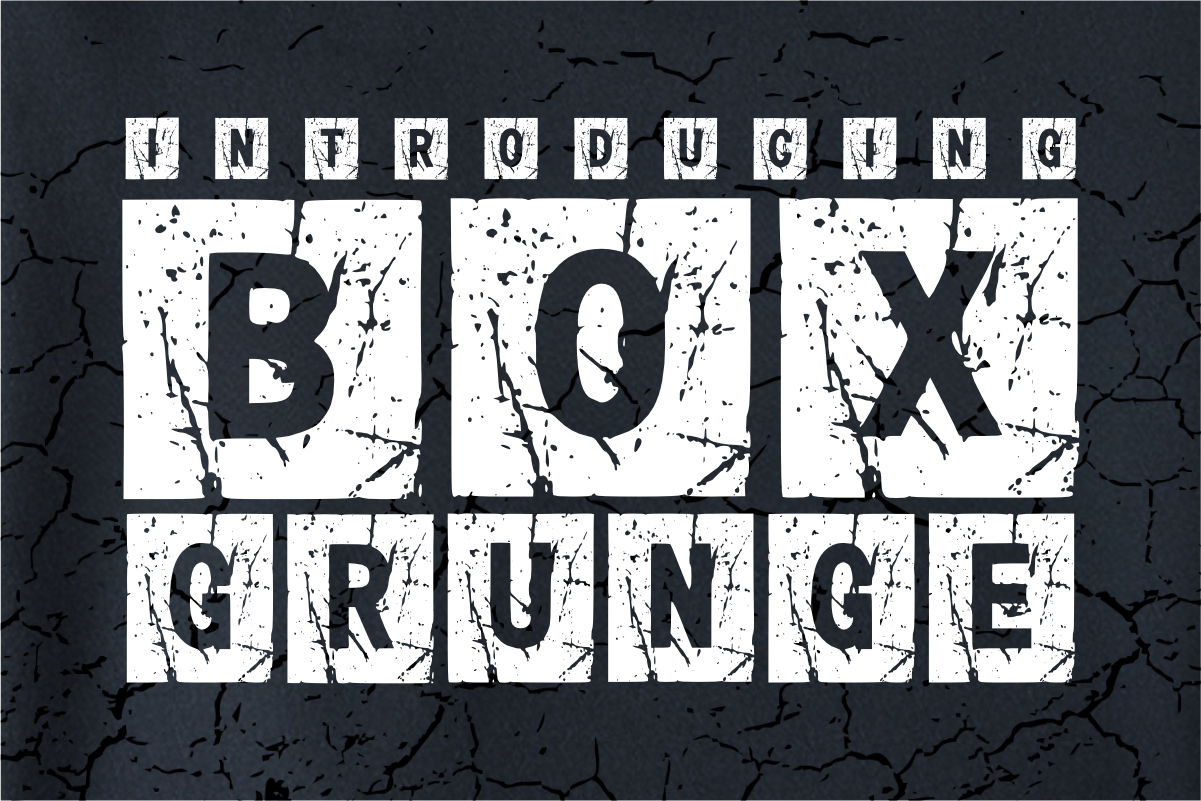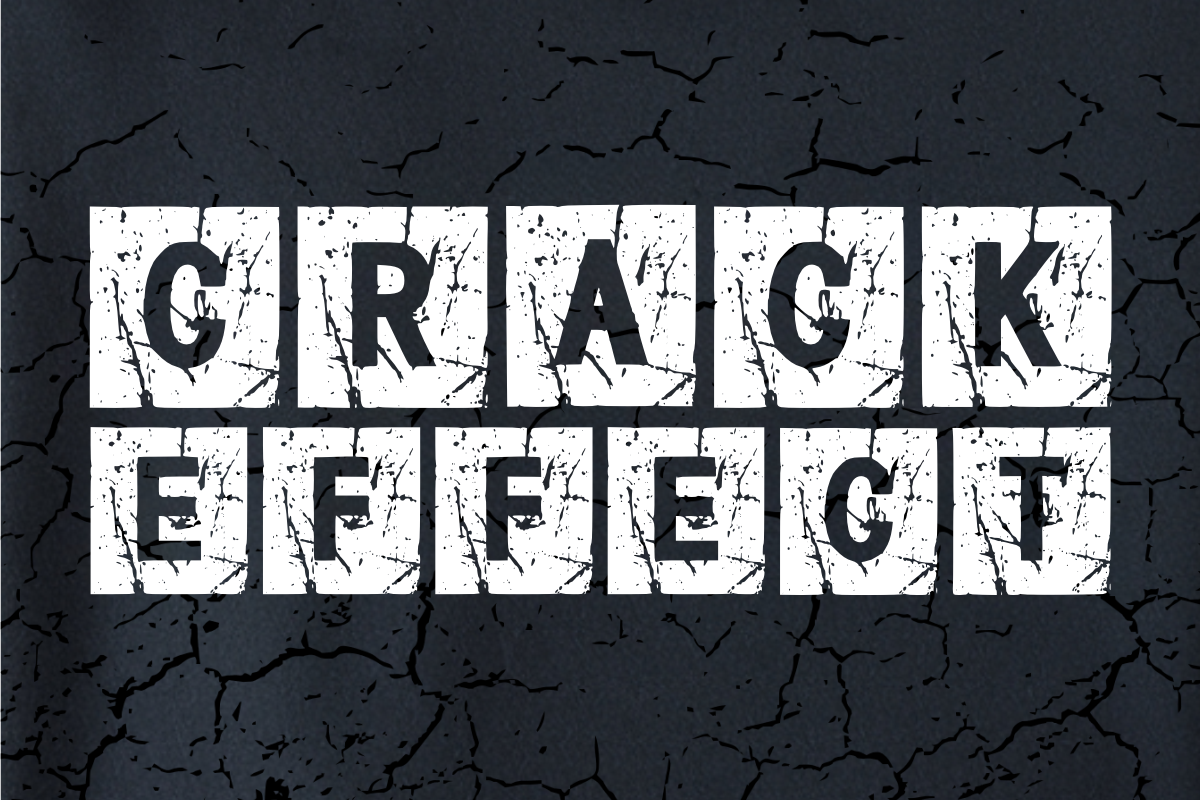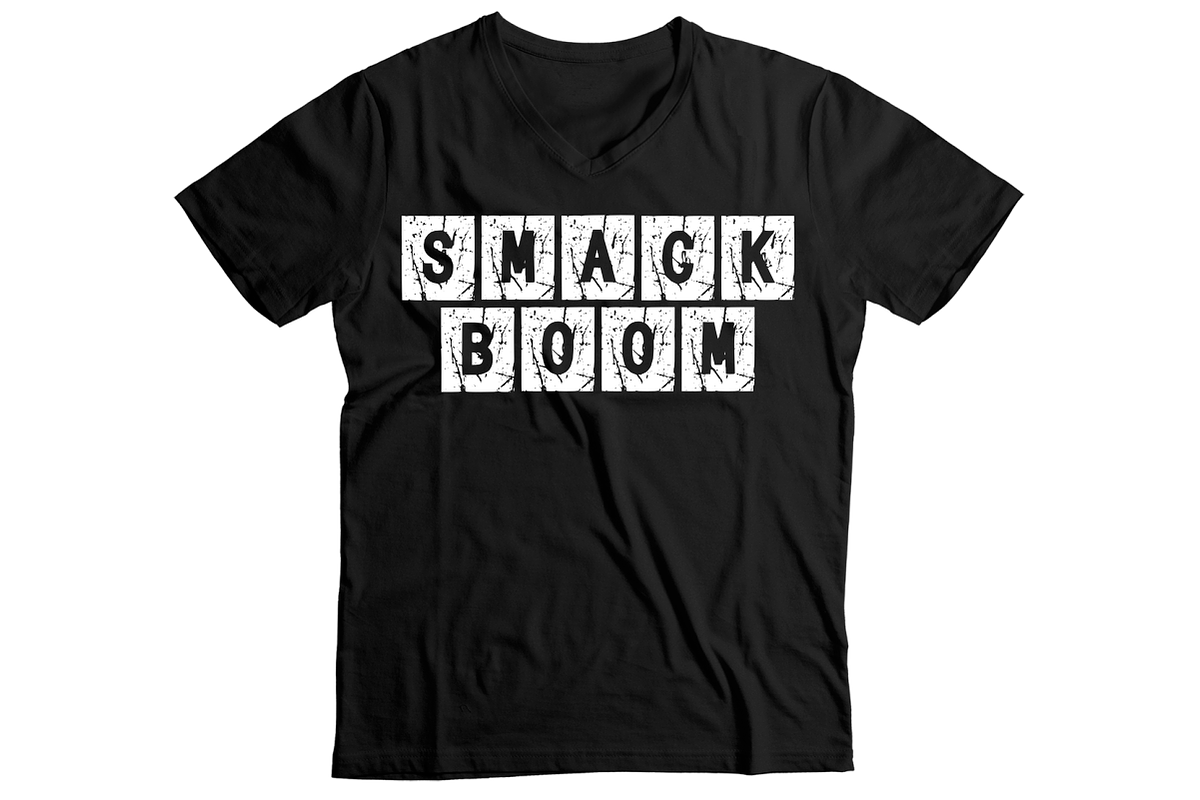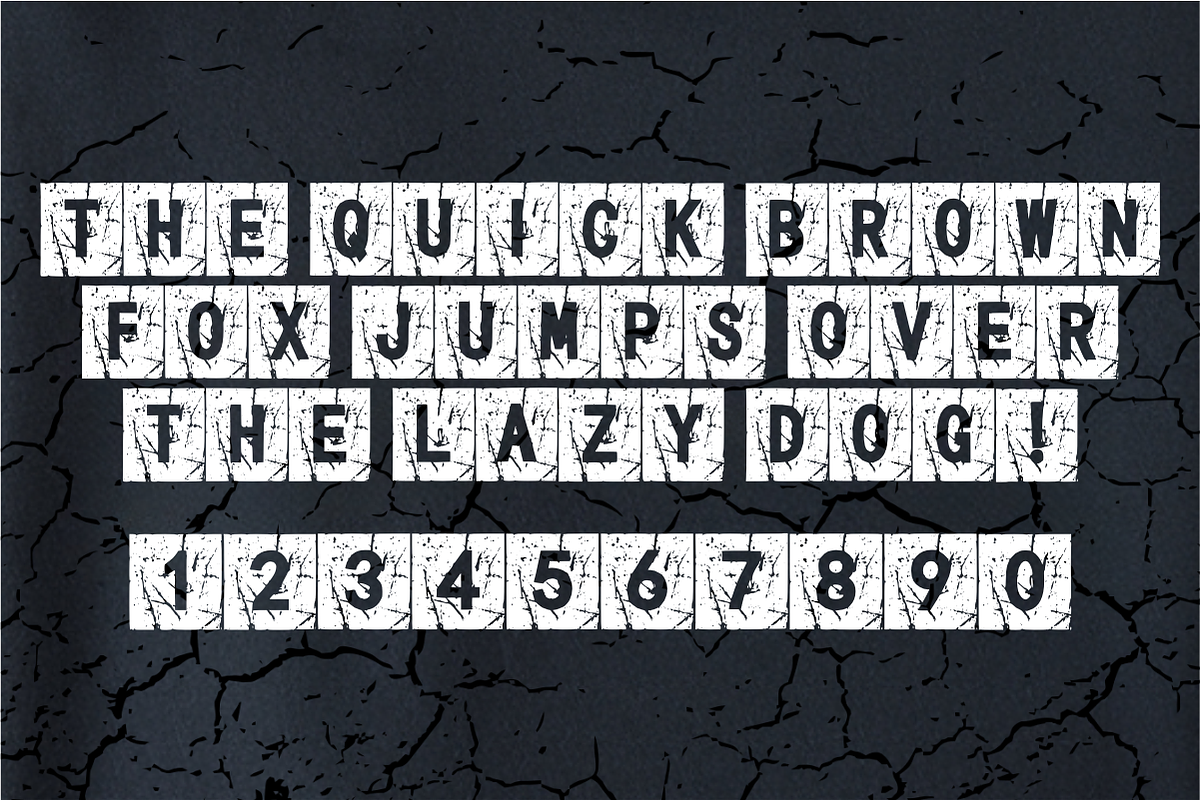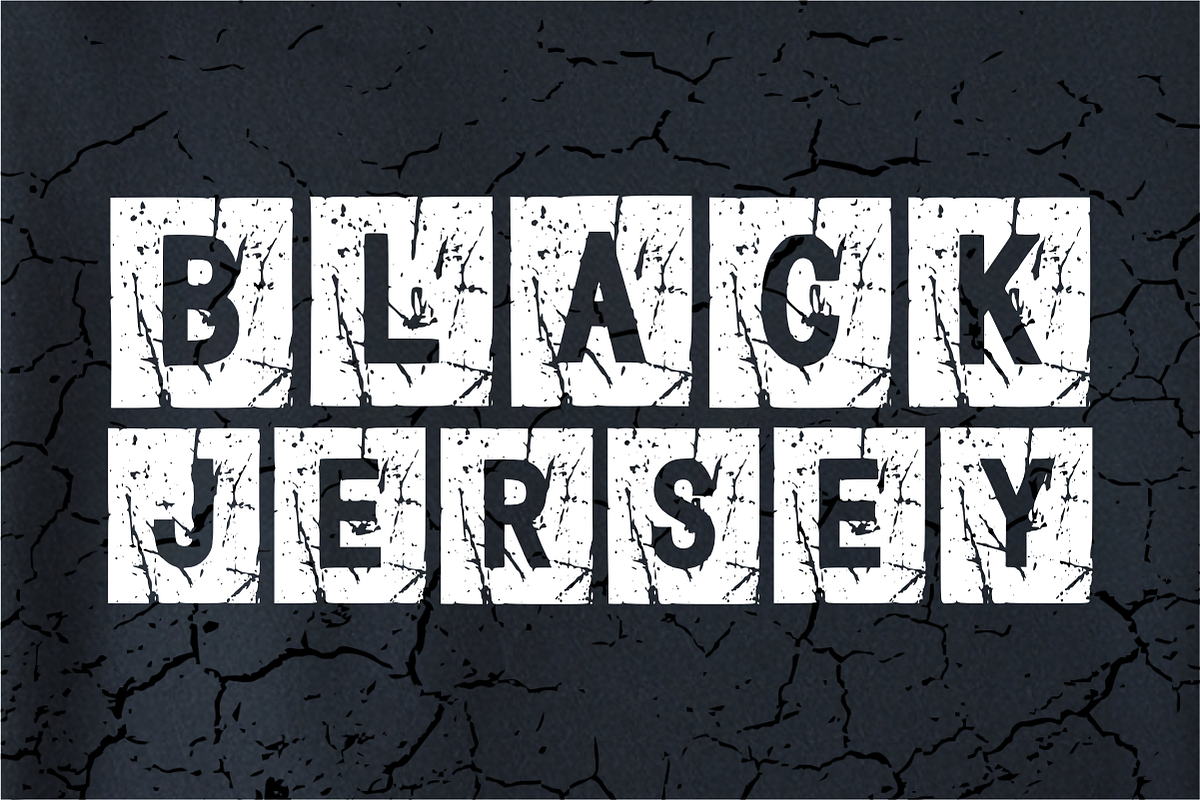
Box Grunge – Stamped Display Font
Box Grunge – Urban Distressed Stamped Display Font 🛠️⛓️
Unleash a raw, industrial edge with a font built for impact!
Box Grunge is a bold, high-impact display font featuring heavy block letters set within weathered, distressed boxes. Inspired by industrial stamping and urban street aesthetics, this font captures a rugged, "grunge" feel that is perfect for designs needing a tough, established, or rebellious look. Each character is meticulously textured to provide a realistic weathered effect right out of the box.
🌟 Why Box Grunge is the Ultimate Choice:
Ready-to-Use Grunge Texture: The authentic distressed effect saves you time—no extra filters or overlays needed to achieve a weathered look.
High-Impact Boxed Design: The unique stamped-in-a-box silhouette ensures your headlines pop against any background.
Industrial & Urban Vibe: Perfectly balances a military stencil aesthetic with a modern streetwear edge.
🎨 Perfect For:
👕 Streetwear & Apparel: Ideal for bold t-shirt graphics, hoodies, and edgy urban branding.
🎸 Music & Event Posters: Perfect for rock, punk, or metal concert flyers and festival headers.
🏀 Sports & Gym Branding: Create powerful logos, jersey designs, and motivational fitness content.
📸 Social Media Content: Stand out on Instagram and YouTube with high-visibility, gritty headlines.
🏷️ Product Packaging: Great for craft beer labels, grooming products, or rugged outdoor gear.
Character Set: Strong All-Caps Uppercase Letters (A-Z) in a boxed style.
Numbers & Symbols: Complete set of numerals (0-9) and essential simple punctuation.